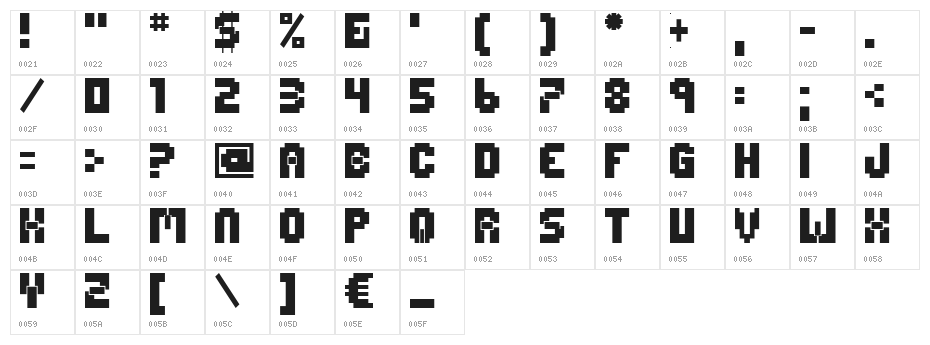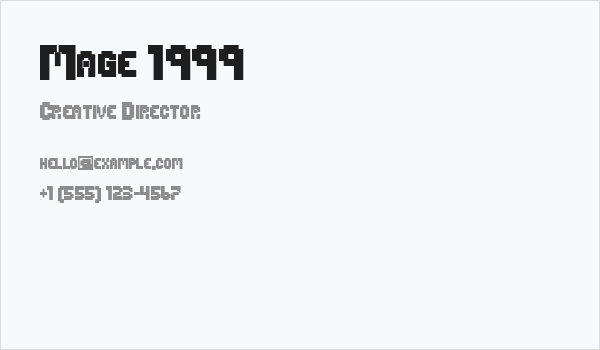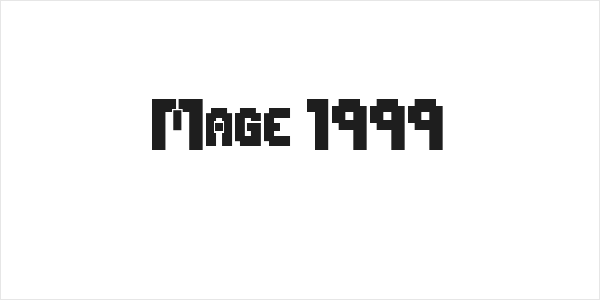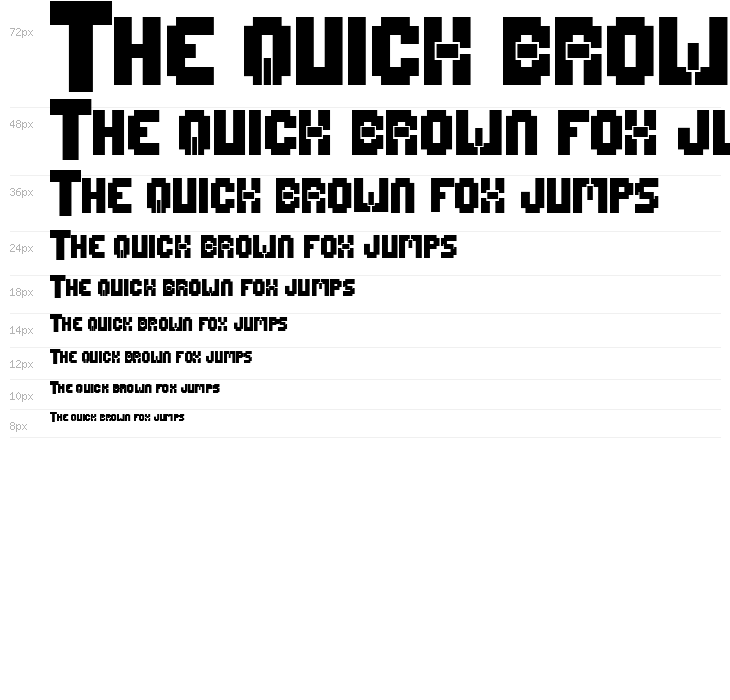
Mage 1999 Font
Mage 1999 Description
This font features a bold, geometric design with a distinctly digital or pixelated appearance. Each character is constructed with sharp, angular lines and blocky shapes, reminiscent of early computer graphics or video game aesthetics. The uppercase and lowercase letters maintain a consistent style, with minimal differentiation between the two sets. The numerals and special characters follow the same design principles, ensuring uniformity across the entire character set. This font's unique style makes it stand out, offering a retro-futuristic vibe that is both eye-catching and nostalgic.
| Overall Style | Retro-Futuristic |
| Proposed Projects | Ideal for video game titles, tech-themed posters, digital art projects, and retro-futuristic branding. |